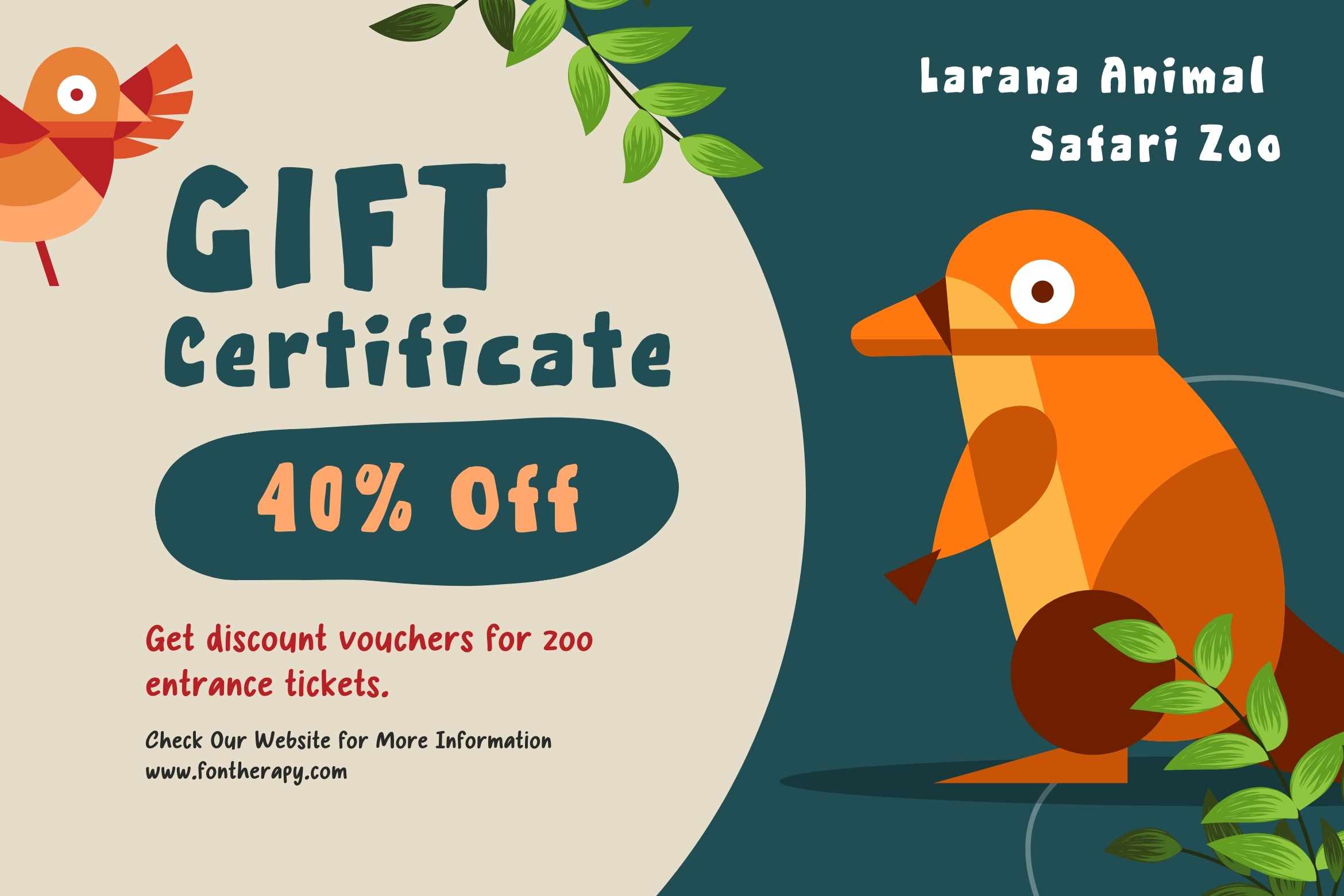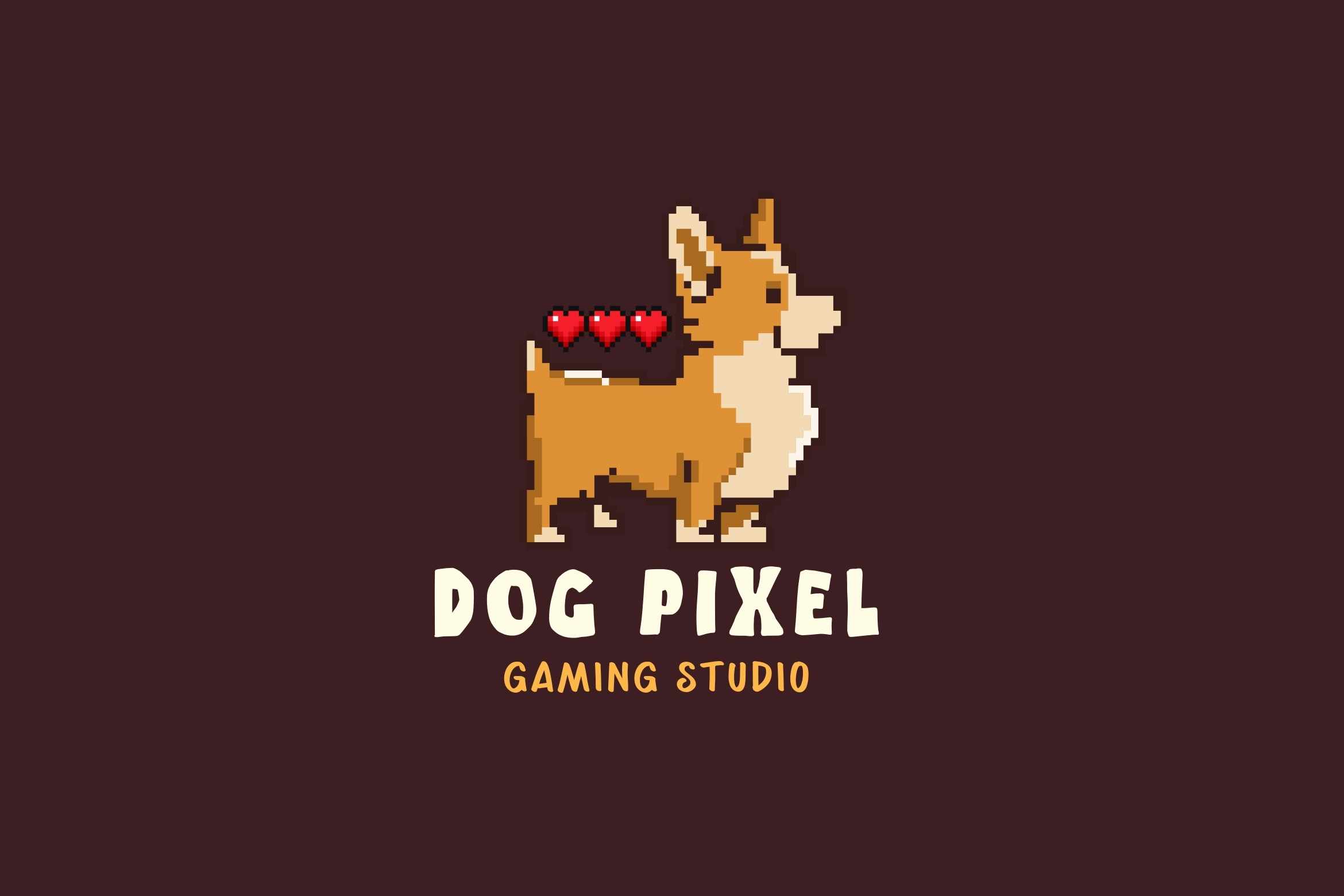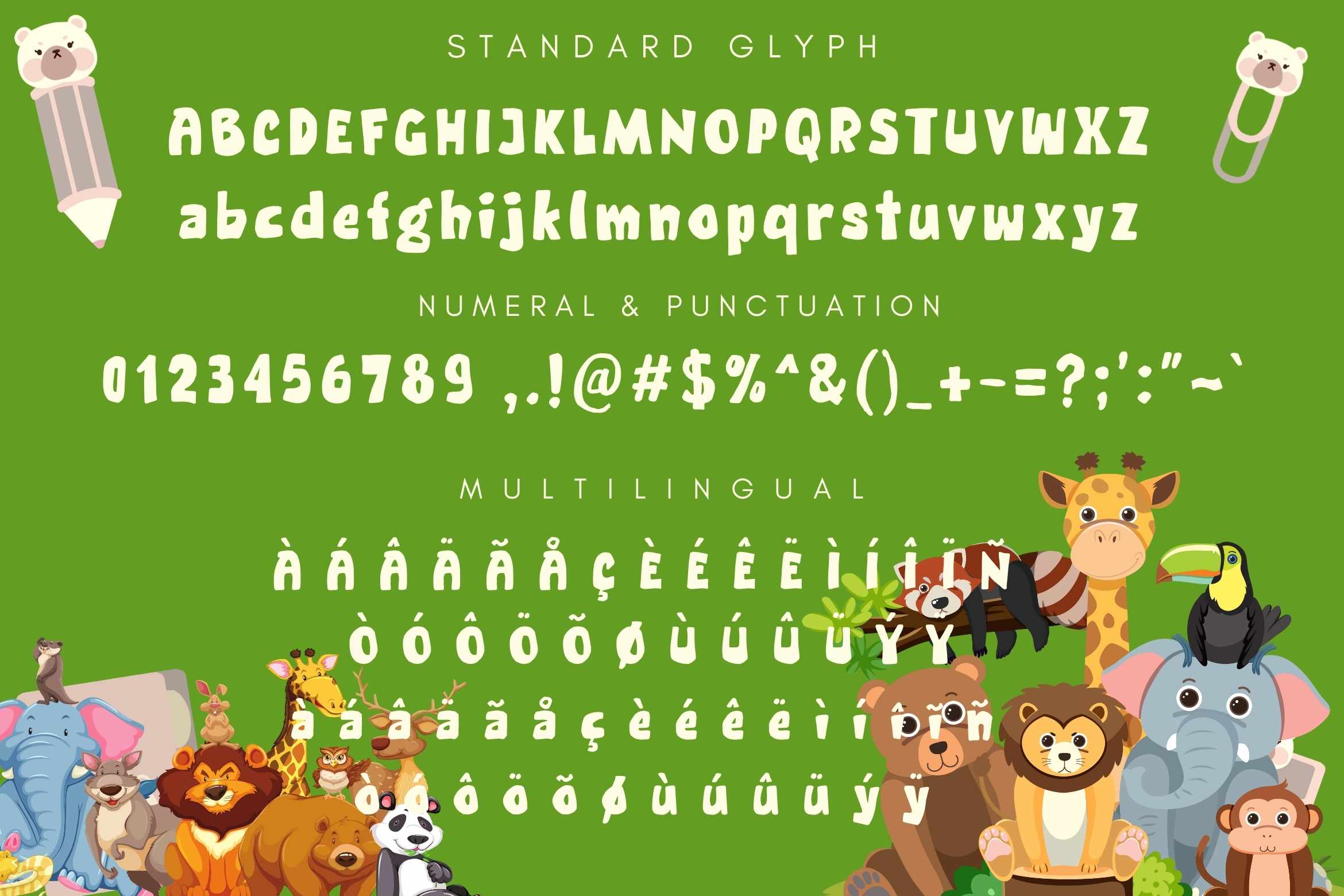
Animal Show
Animal Show is a playful and cute handwritten font that brings a lively and cheerful vibe to your designs. This font is perfect for projects that aim to capture the essence of fun, creativity, and friendliness, making it an excellent choice for children-focused designs or nature-themed projects.
Key Features:
1. Playful Aesthetic: The bold, uneven strokes of the characters add a touch of fun and spontaneity, reminiscent of handwritten designs created with joy and imagination.
2. Versatile Application: Ideal for children's book covers, zoo or animal-related posters, educational materials, or playful branding projects.
3. Nature-inspired Theme: Its quirky design pairs perfectly with themes related to animals, the outdoors, and wildlife.
4. Lively Personality: The font brings a sense of warmth and energy, suitable for promoting family-friendly events, school projects, or interactive experiences.
Perfect For:
• Kids' Posters and Books: A great fit for bright and colorful illustrations.
• Zoo and Wildlife Themes: Excellent for brochures, signage, or animal-themed merchandise.
• School Projects and Events: Captures the playful spirit of learning and collaboration.
• Playful Branding: Perfect for brands that target young audiences or wish to evoke a sense of fun and nature.
Whether you're working on an animal-themed project or want to infuse your designs with a whimsical touch, Animal Show is the perfect font to bring your creative ideas to life!